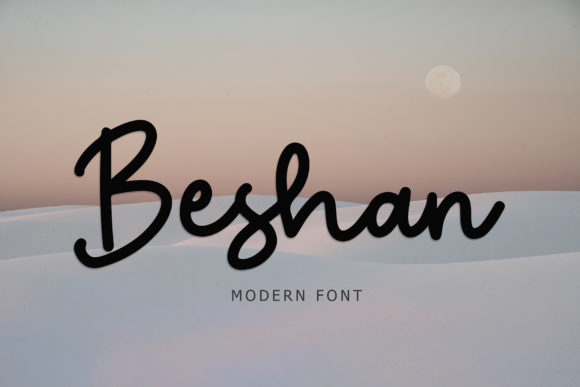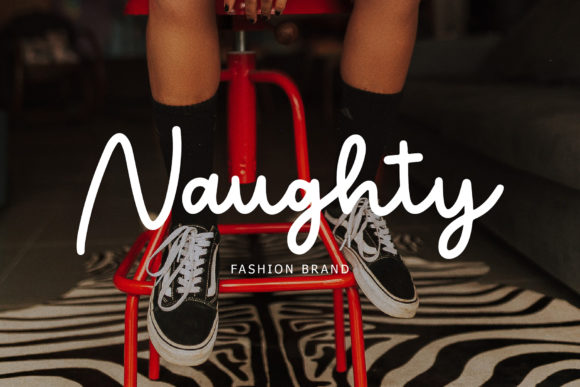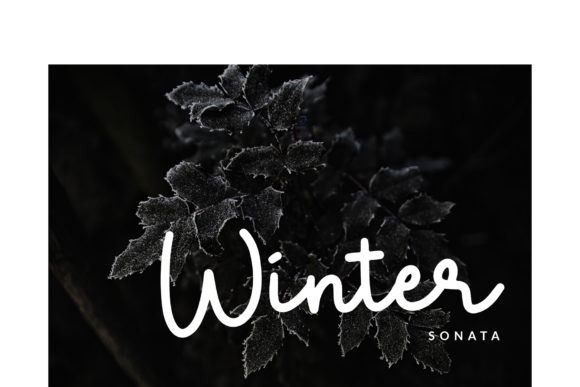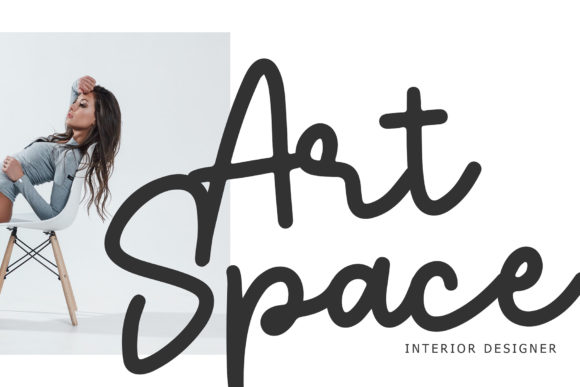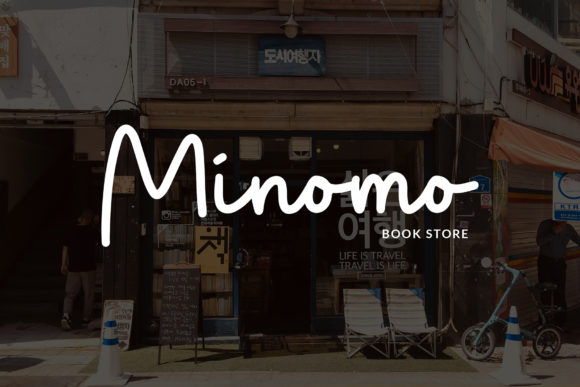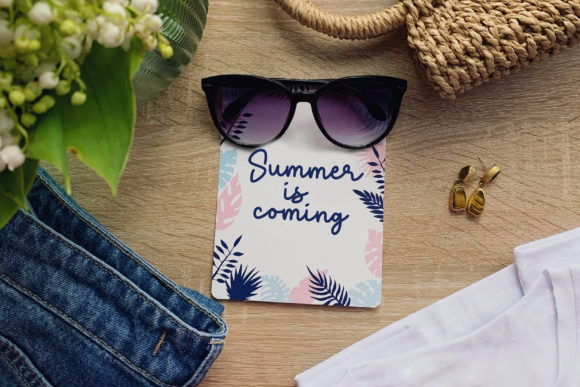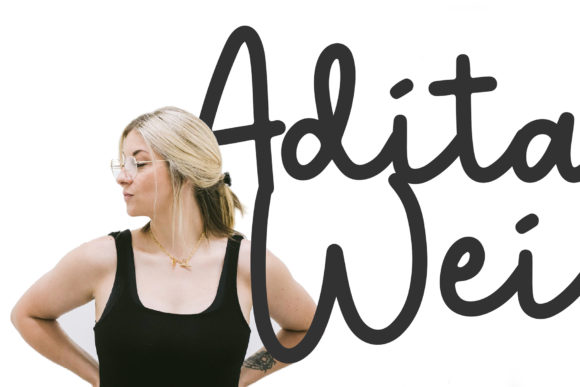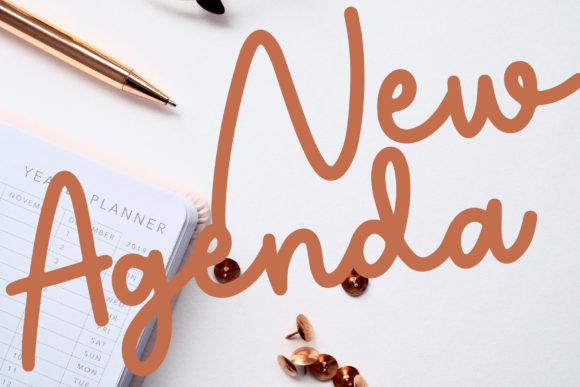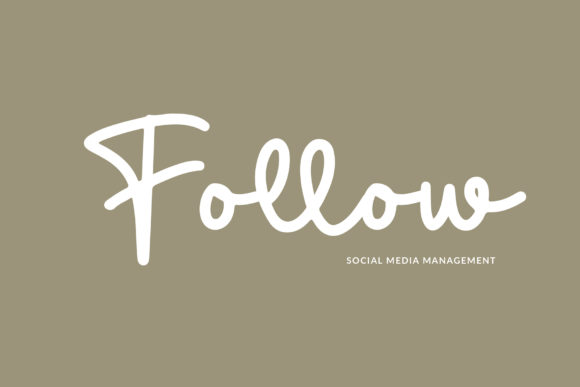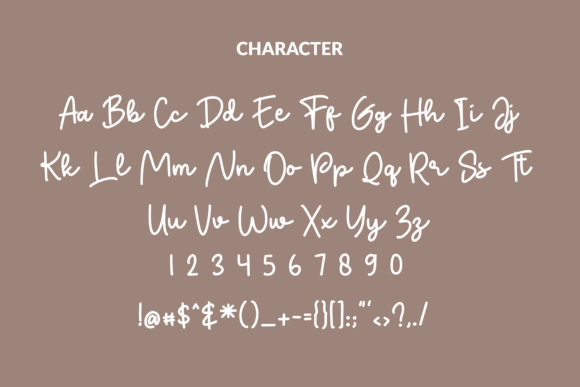
Beshan Font
About Beshan Font
Beshan is a sweet and modern handwritten font. A bit quirky and relaxed, this font fits both formal and informal designs.